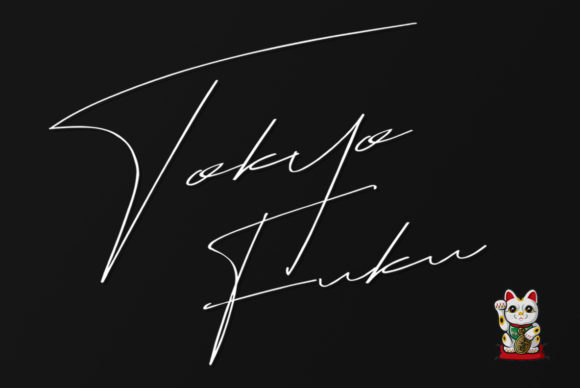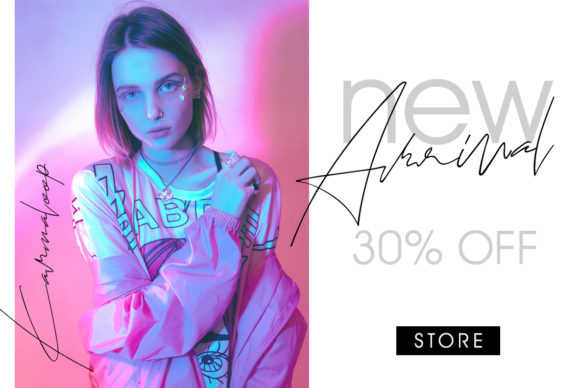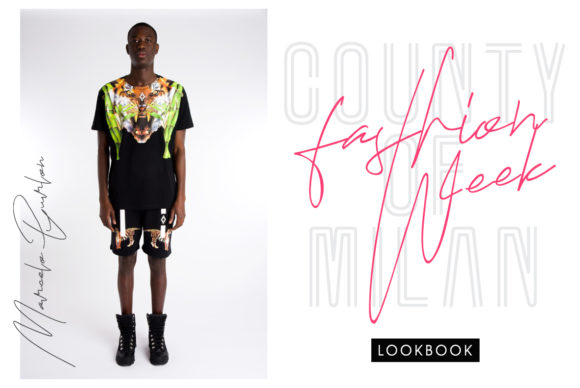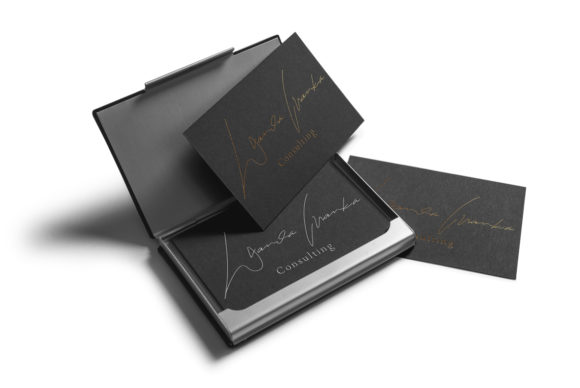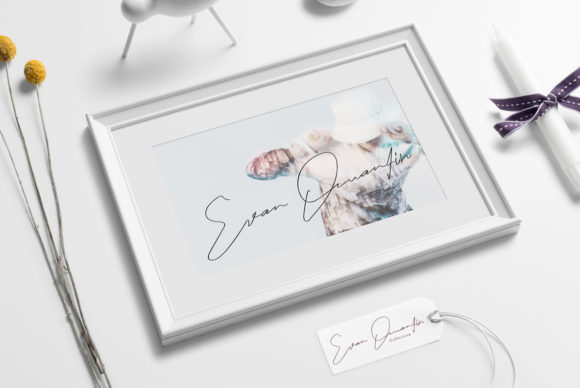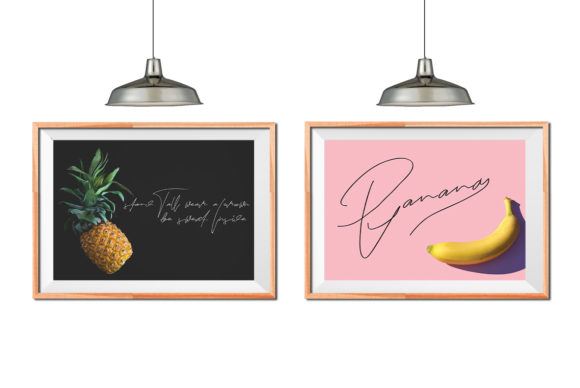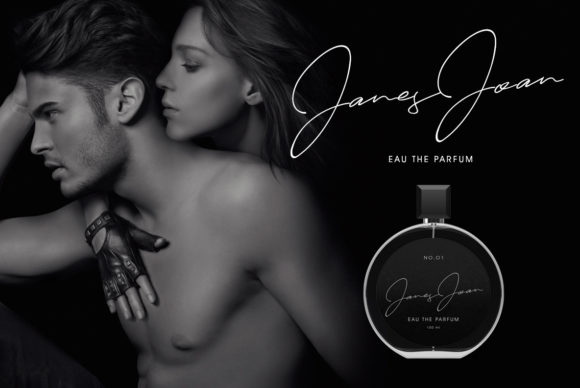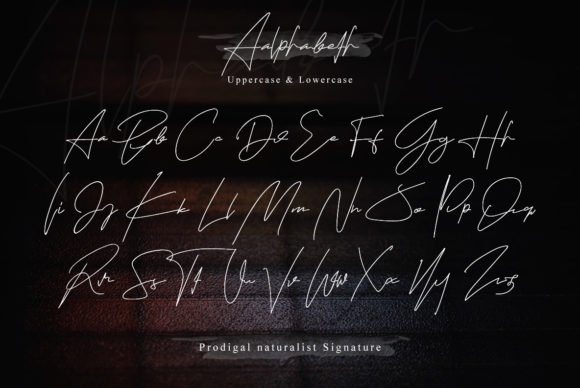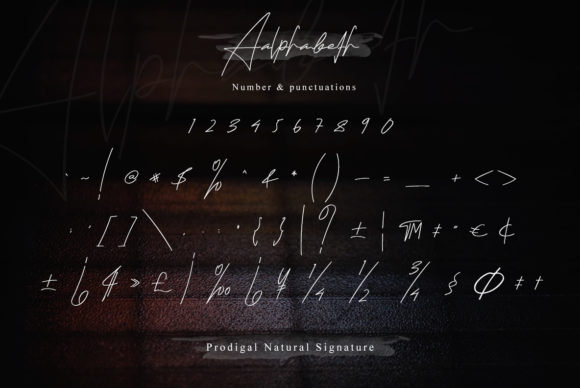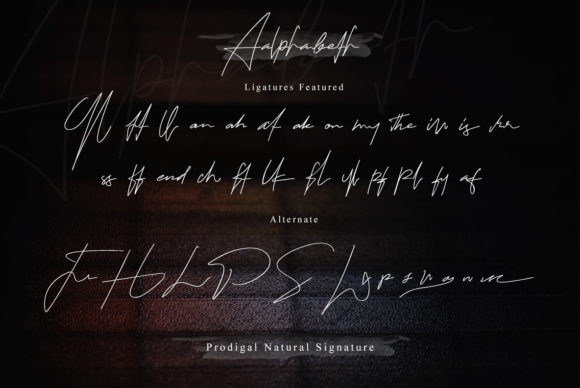
Tokyo Fuku Font
About Tokyo Fuku Font
Tokyo Fuku is a magical script font carefully created with a touch of elegance. This is a beautiful combination of timeless elegance and authentic calligraphy.